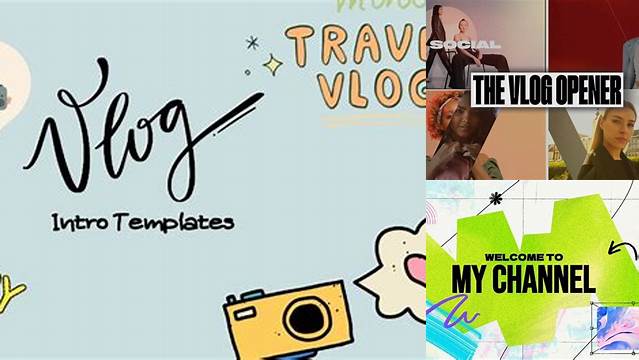
Best Fonts For Vlog Intros: Make A Great First Impression
Choosing the right font for your vlog intro is crucial. It's the first impression your audience gets, and it sets the tone for your entire video. The fonts you use can communicate your brand's personality, whether it's professional, fun, quirky, or serious. With so many fonts available, selecting the perfect one can feel overwhelming. Let's dive into some tips and font recommendations to make your vlog intro stand out. Selecting the right font involves thinking about what kind of message you want to convey, and considering what type of audience you are trying to attract. It is important to test different fonts to see what works best for your particular brand. Think about legibility, contrast, and scalability when making your font selections. The right font enhances the overall viewing experience, making your content more engaging and memorable. Ultimately, the perfect font choice will depend on your unique style and content. Consider all of these aspects carefully to make an informed choice that supports your brand identity.
Understanding Font Personalities
Every font has a unique personality. Serif fonts, like Times New Roman or Georgia, often convey a sense of tradition, authority, and professionalism. They're great if your vlog focuses on serious topics, news, or education. Sans-serif fonts, such as Arial or Helvetica, offer a modern, clean, and minimalist feel. These fonts are versatile and work well for tech reviews, lifestyle vlogs, or anything aiming for a contemporary vibe. Script fonts mimic handwriting and can add a touch of elegance, creativity, or informality. Use them sparingly, as they can be harder to read, but they're perfect for fashion, beauty, or DIY vlogs. Display fonts are designed to be eye-catching and unique. These are best for grabbing attention but should also be used carefully to ensure readability. When picking your font, consider how it aligns with your vlog's overall theme and message. Do you want to appear trustworthy and knowledgeable? Or perhaps you're aiming for fun and approachable? The font should enhance and reinforce your brand identity. Also, think about where your videos will be watched. Will people be viewing on large screens or mobile devices? This will impact the readability of your chosen font. Always test your intro on different devices to make sure your font looks great everywhere. Getting the right font personality can really help to solidify your vlog's presence and draw in viewers.
Top Font Recommendations for Vlog Intros
When selecting top font recommendations for vlog intros, several stand out due to their versatility and visual appeal. Here are some popular choices that cater to various vlog styles: Montserrat is a clean and modern sans-serif font that works exceptionally well for tech, business, or lifestyle vlogs. Its readability and simple design make it a safe yet stylish choice. Raleway is another great sans-serif option, offering a slightly more elegant and sophisticated look compared to Montserrat. It’s perfect for vlogs that focus on fashion, beauty, or design. Bebas Neue is a condensed sans-serif font that’s bold and attention-grabbing. It’s ideal for making a strong statement, especially in energetic and fast-paced vlogs. Oswald is a classic sans-serif font that’s both modern and versatile. It works well for a variety of vlog topics, from travel to education. Playfair Display is a serif font that exudes elegance and sophistication. Use it for vlogs that aim for a high-end or classic feel, such as luxury lifestyle or historical content. Roboto is a widely used sans-serif font known for its clean and approachable design. It’s an excellent choice for vlogs that prioritize clarity and simplicity. Lato is a modern sans-serif font with rounded edges, giving it a friendly and approachable vibe. It’s perfect for vlogs that want to create a welcoming atmosphere. When choosing a font, always consider your target audience and the overall tone of your vlog. Experiment with different fonts to see what best represents your brand. Also, ensure that the font is legible and scales well across different devices.
Font Pairing Tips
Effective font pairing tips can significantly enhance the visual appeal of your vlog intro. Combining different fonts creates a dynamic and engaging look, but it’s essential to do it right. A good rule of thumb is to pair a serif font with a sans-serif font. For example, use Playfair Display for your title and Montserrat for your supporting text. This contrast adds visual interest while maintaining readability. Another approach is to combine a bold font with a lighter font. Use Bebas Neue for your main title to grab attention and pair it with a lighter font like Lato for the description. This creates a clear hierarchy and ensures that your message is easily understood. Avoid pairing fonts that are too similar, as this can look unintentional and bland. The fonts should complement each other without competing for attention. Limit yourself to two or three fonts in your intro to maintain a clean and cohesive look. Overusing fonts can make your intro look cluttered and unprofessional. Use online tools like FontPair or Coolors to find harmonious font combinations. These tools offer suggestions based on design principles and can help you discover unique and effective pairings. Always test your font pairings on different devices and screen sizes to ensure they look good across all platforms. The goal is to create a visually appealing intro that captures attention and reinforces your brand identity. Experiment with different combinations until you find a pairing that perfectly matches your vlog’s style and message.
Readability and Accessibility
When considering readability and accessibility in your vlog intro, it's crucial to ensure that your chosen fonts are easy to read for all viewers. Readability refers to how easily viewers can recognize and understand the text. Choose fonts with clear and distinct letterforms, avoiding overly decorative or stylized fonts that can strain the eyes. Sans-serif fonts like Arial, Helvetica, and Roboto are generally more readable on screens than serif fonts, especially at smaller sizes. Pay attention to the font size and ensure that it’s large enough to be easily read on various devices, including smartphones and tablets. Avoid using very small font sizes, as they can be difficult to read, especially for viewers with visual impairments. Contrast is also essential for readability. Make sure there is sufficient contrast between the text color and the background color. Dark text on a light background or light text on a dark background are generally the most readable options. Avoid using colors that are too similar, as they can make the text difficult to distinguish. Accessibility is another important consideration. Ensure that your intro is accessible to viewers with disabilities, including those with visual impairments. Provide captions or subtitles for your intro to make it accessible to viewers who are deaf or hard of hearing. Use alt text for any images or graphics in your intro to provide a text alternative for viewers who use screen readers. Avoid using flashing or rapidly moving elements in your intro, as they can trigger seizures in viewers with photosensitive epilepsy. By prioritizing readability and accessibility, you can create an inclusive and engaging intro that reaches a wider audience.
Software and Tools for Font Implementation
Implementing fonts effectively in your vlog intro requires the right software and tools for font implementation. Many video editing programs offer robust text and typography options, allowing you to customize fonts, sizes, colors, and animations. Adobe Premiere Pro and Final Cut Pro are industry-standard video editing software that provide extensive font libraries and advanced text editing features. These programs allow you to import custom fonts, adjust kerning and tracking, and create visually stunning text effects. For simpler video editing tasks, consider using user-friendly software like iMovie or Filmora. These programs offer a more streamlined interface and a selection of pre-installed fonts, making it easy to create professional-looking intros without a steep learning curve. Online video editing tools like Canva and Animoto are also great options for creating quick and engaging intros. These platforms offer a variety of pre-designed templates and font combinations, allowing you to create visually appealing intros in minutes. When implementing fonts, make sure to use appropriate file formats. TTF (TrueType Font) and OTF (OpenType Font) are the most common font formats and are compatible with most video editing software. Ensure that you have the necessary licenses for the fonts you use, especially if you are using them for commercial purposes. Many free fonts are available for personal use, but you may need to purchase a license for commercial use. Use font management tools like FontBase or NexusFont to organize and manage your font library. These tools allow you to preview fonts, activate and deactivate them, and resolve font conflicts. By using the right software and tools, you can easily implement fonts in your vlog intro and create a visually appealing and engaging opening for your videos.
Keeping Up with Font Trends
Keeping up with font trends is essential for maintaining a fresh and modern look for your vlog intro. Font trends, like other design trends, evolve over time, and using outdated fonts can make your vlog look dated. Stay informed about the latest font trends by following design blogs, social media accounts, and online design communities. Websites like Typewolf, Creative Market, and Awwwards showcase the latest font trends and provide inspiration for your own designs. Experiment with new and emerging fonts to see how they can enhance your vlog intro. Try incorporating fonts that are currently popular in web design, graphic design, and branding. Pay attention to the fonts used by other successful vloggers and content creators. Analyze their font choices and see how they contribute to their overall brand identity. However, avoid simply copying their font selections. Instead, use them as inspiration to find fonts that are unique and authentic to your own brand. Consider the overall aesthetic of your vlog and choose fonts that complement your content. If your vlog focuses on technology, consider using modern and minimalist sans-serif fonts. If your vlog focuses on fashion or beauty, consider using elegant and sophisticated serif fonts. Don’t be afraid to experiment with unconventional font pairings. Try combining unexpected font styles to create a unique and eye-catching look. However, always prioritize readability and ensure that your font choices are easy to read on various devices. Update your vlog intro periodically to reflect the latest font trends. A simple font update can make your vlog look more modern and relevant. By keeping up with font trends, you can ensure that your vlog intro remains visually appealing and engaging for your audience.